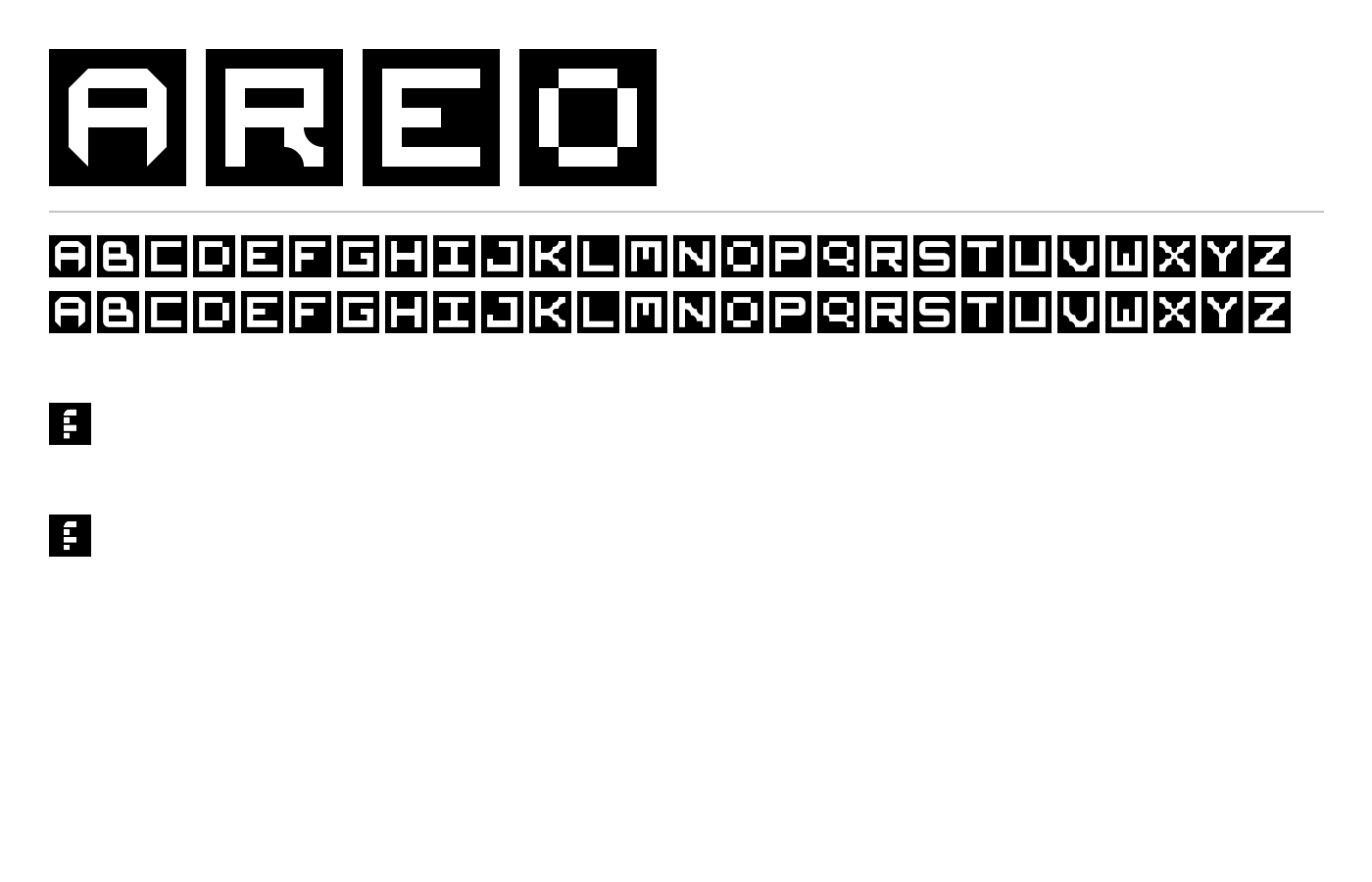
AREO is a bold, geometric sans serif font characterized by its heavy weight, blocky structure, and strong modular shapes with sharp angles and squared corners. It carries a modern, tech-inspired vibe that works well for impactful headlines, logos, and digital designs where a futuristic or industrial feel is desired. This font’s distinct squared letterforms and consistent stroke weight make it highly legible and visually striking in display uses.
AREO Font
About AREO Font